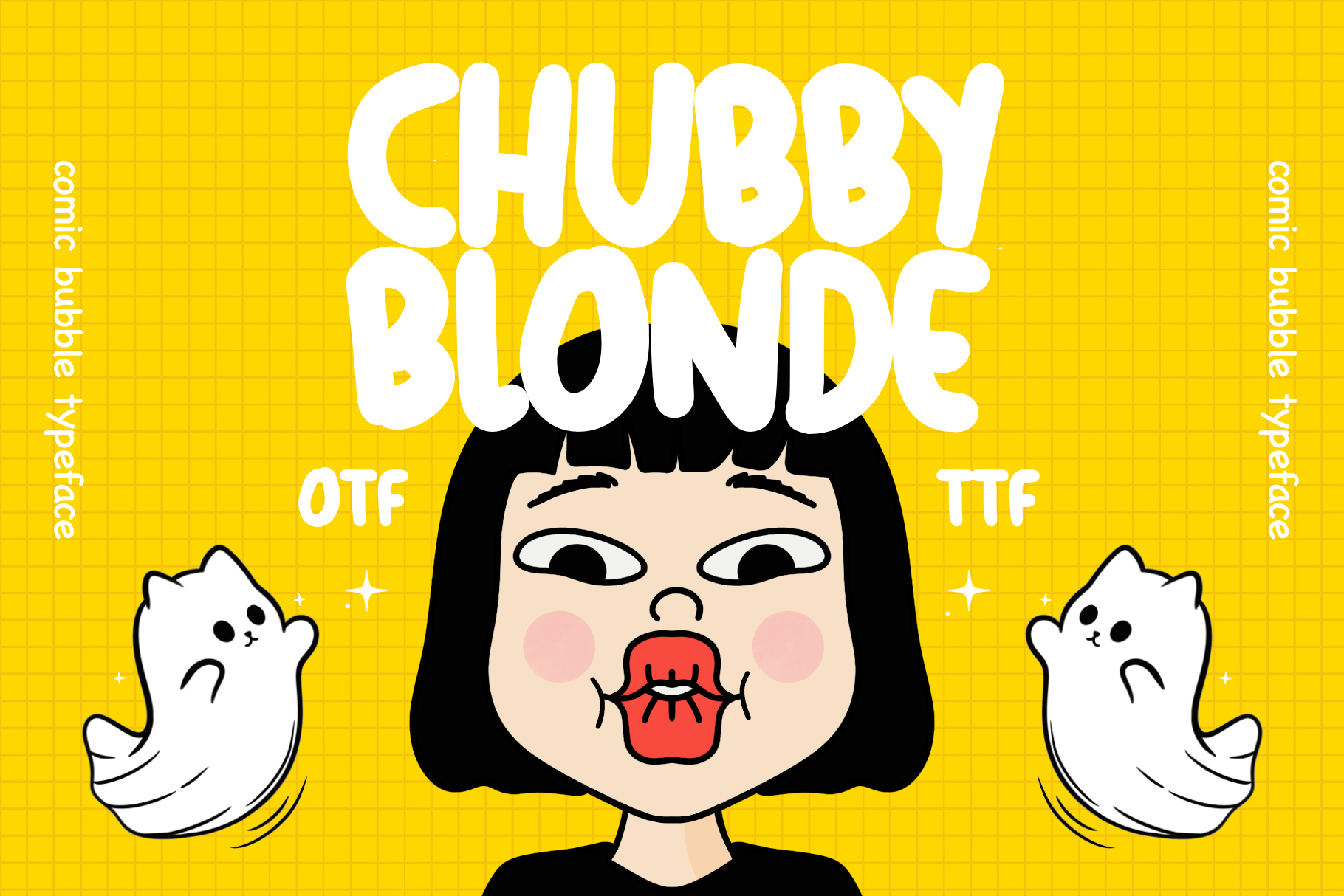
Chubby Blonde Font - Bubble Font
Chubby Blonde is a delightful bubble font that effortlessly merges charm with a playful handwriting style. This typeface available in SVG format, compatible with advanced tools such as Cricut and Glowforge, and for use in Procreate. This font product brings a unique and whimsical touch to any project, capturing the essence of carefree creativity.